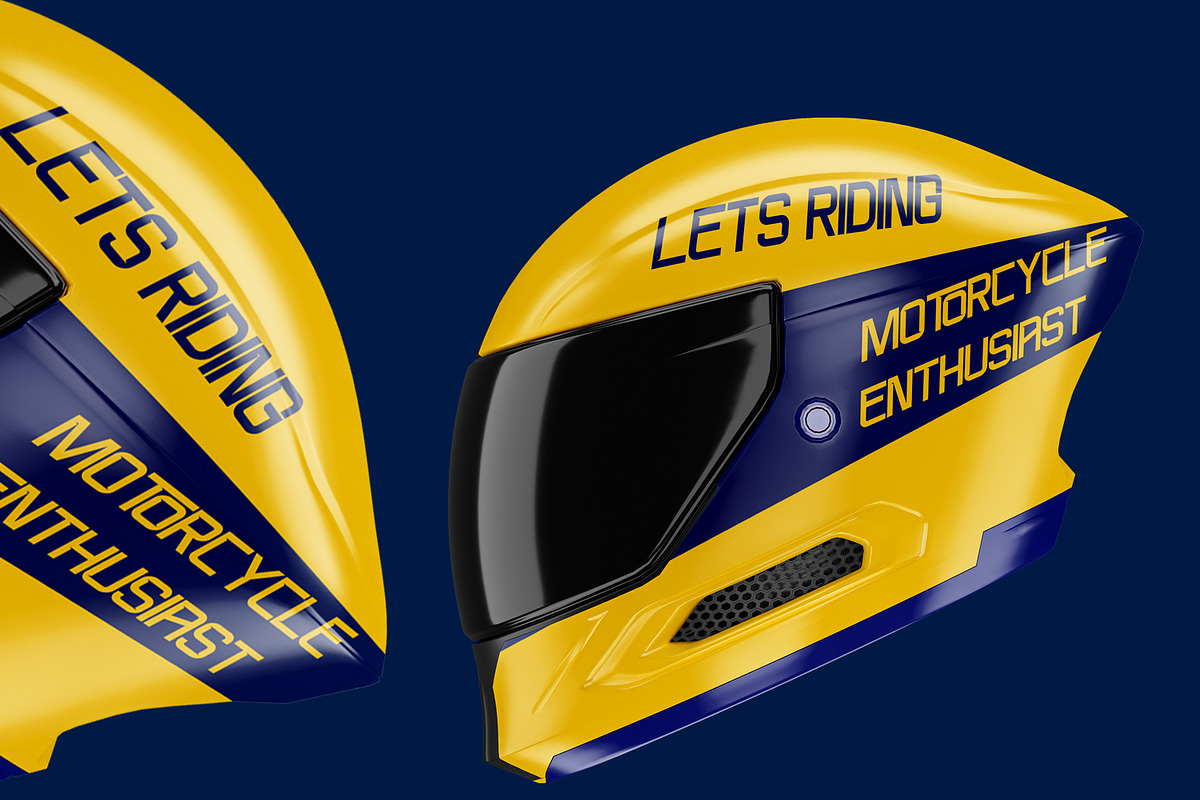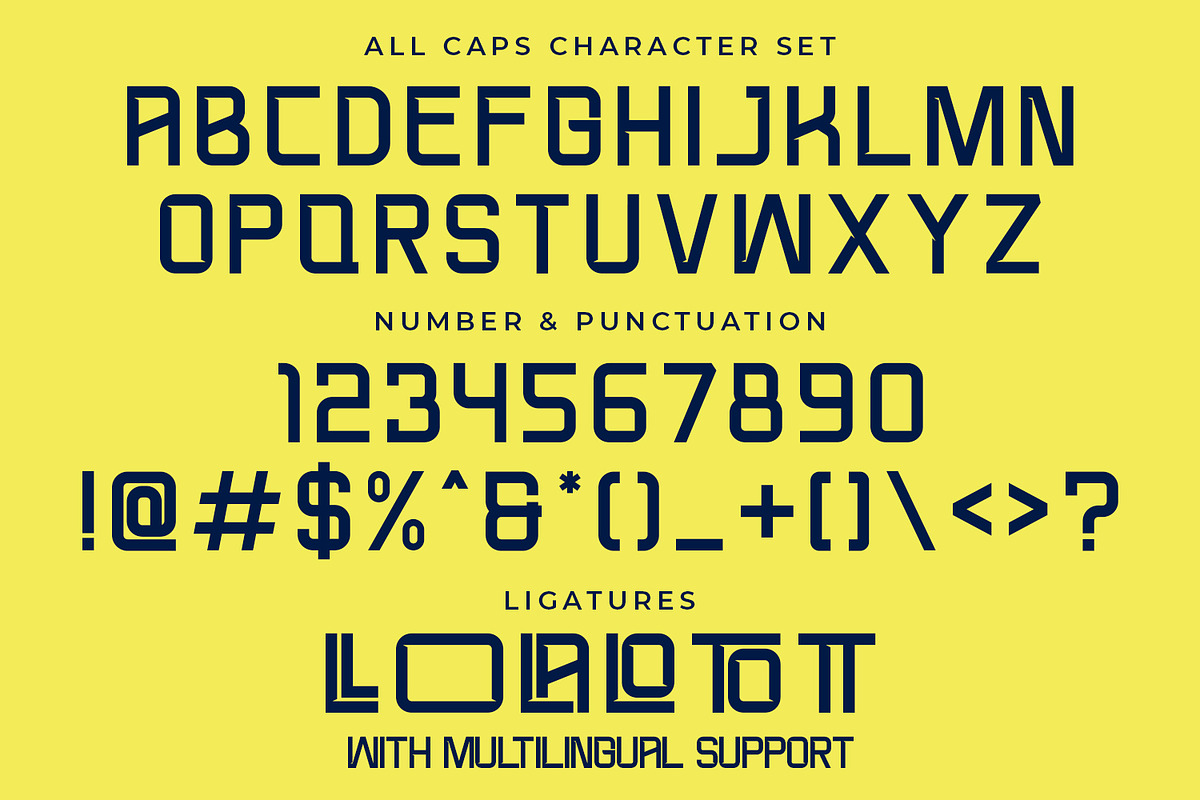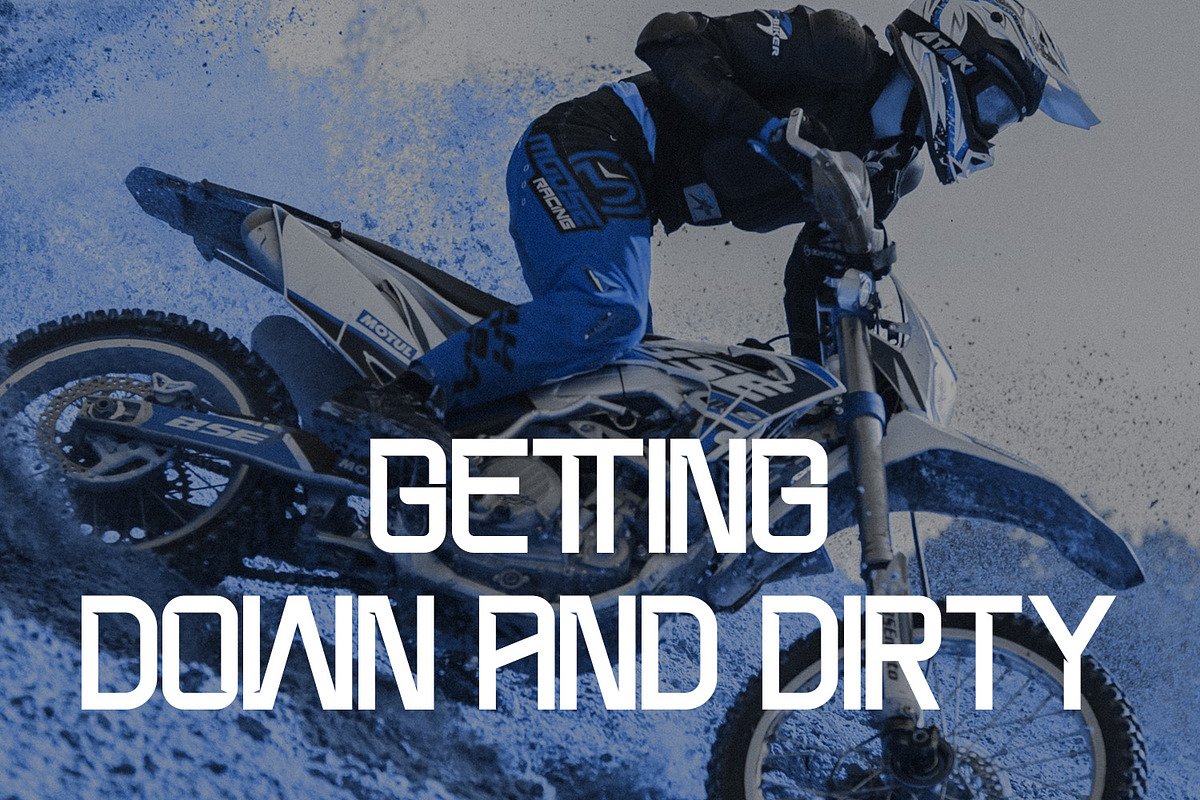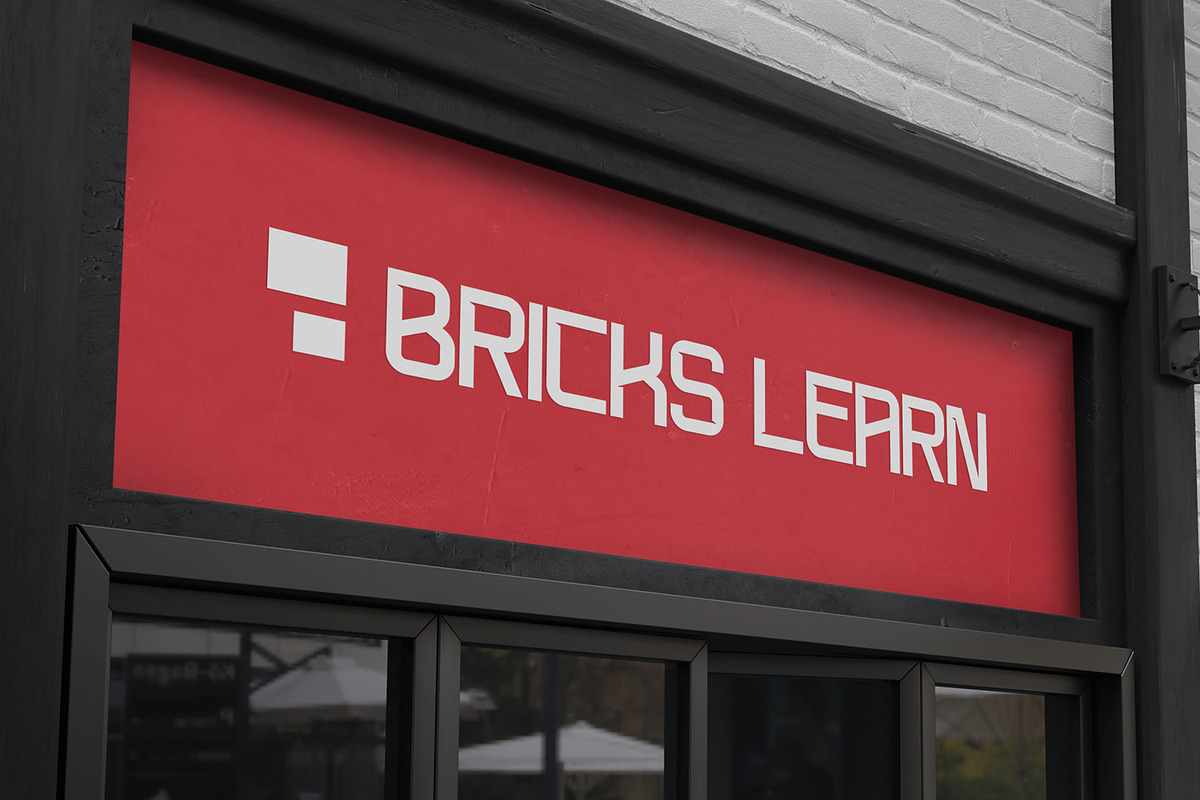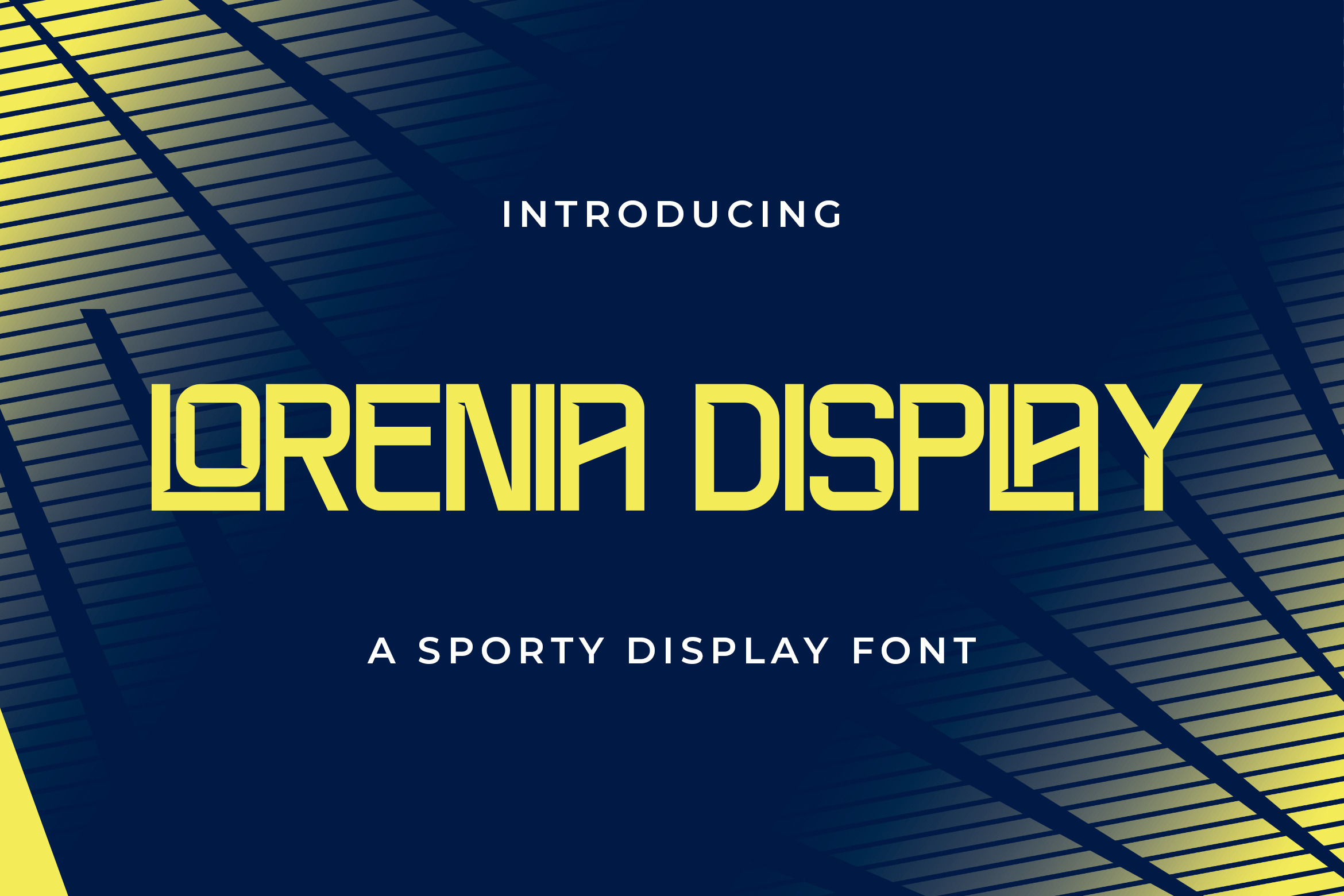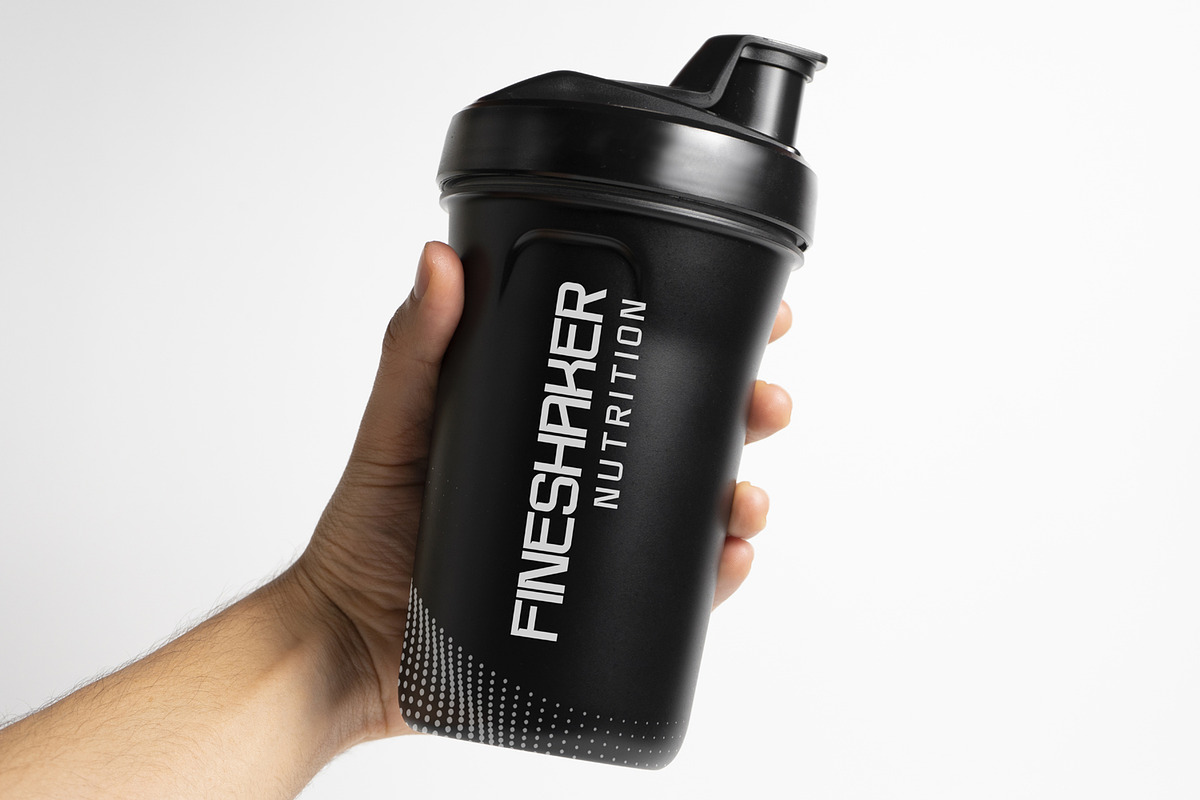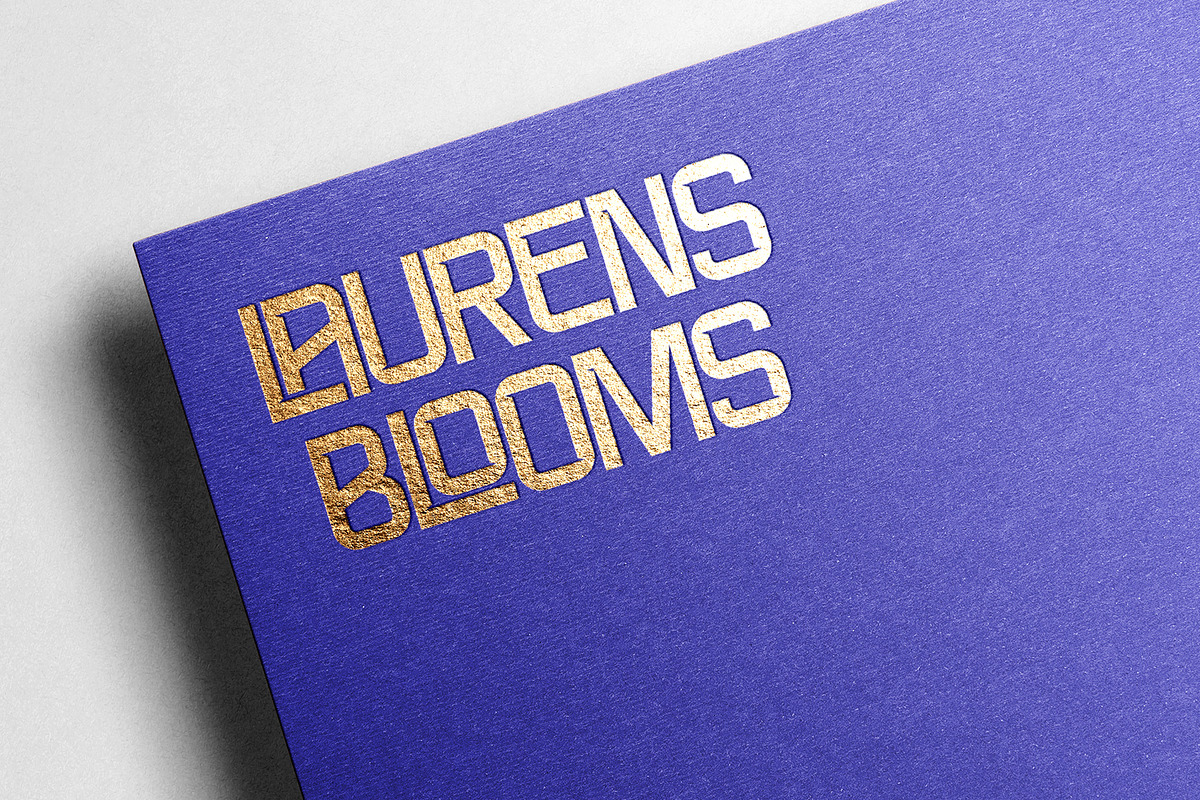
Lorena Display – Sporty Display Font
Lorena Display is a bold and sporty display font designed for strong visual impact and modern typography needs. Built with sharp angles, solid strokes, and futuristic letterforms, this font delivers a powerful and energetic character that stands out instantly.
Lorena Display is perfect for sports branding, motorcycle graphics, racing themes, fitness products, esports visuals, posters, signage, apparel designs, headlines, logos, and dynamic promotional materials. Its all-caps structure and geometric construction make it highly readable while maintaining a modern and aggressive style.
The font includes uppercase characters, numbers, punctuation, ligatures, and multilingual support, giving designers flexibility for both digital and print projects.
Lorena Display is ideal for designers looking for a modern sporty display font with a bold, confident, and professional look.